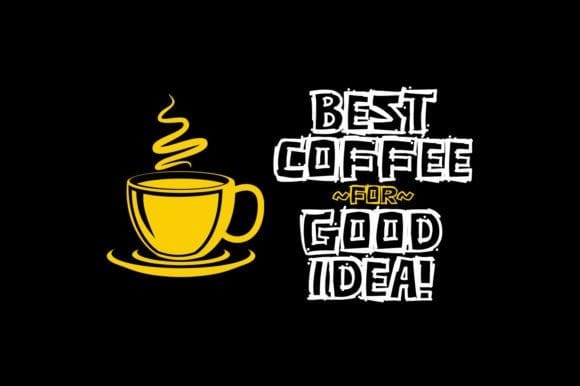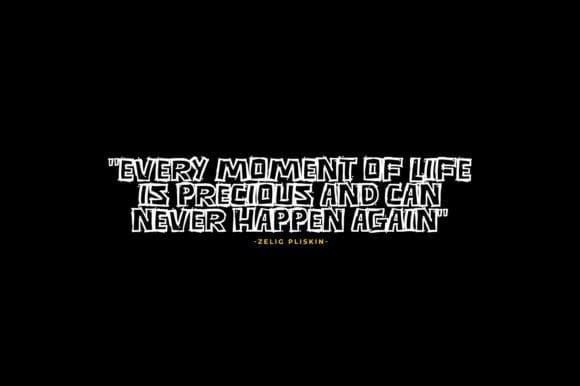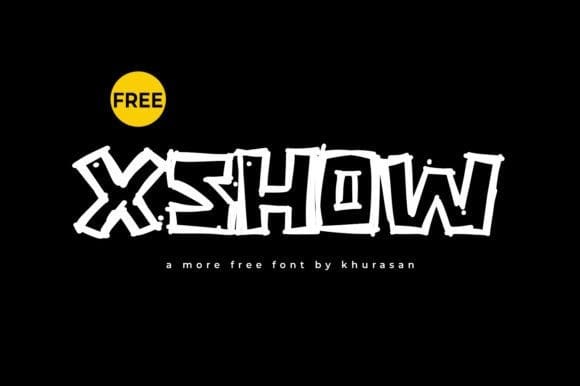
Xshow Font
Xshow Font is a modern and unique display font perfect for posters, logos, magazines, book covers, banners, and many more! Get this amazing font, and use it to create lovely designs. It can easily be matched to an incredibly large set of projects, so add it to your creative ideas and notice how it makes them stand out!